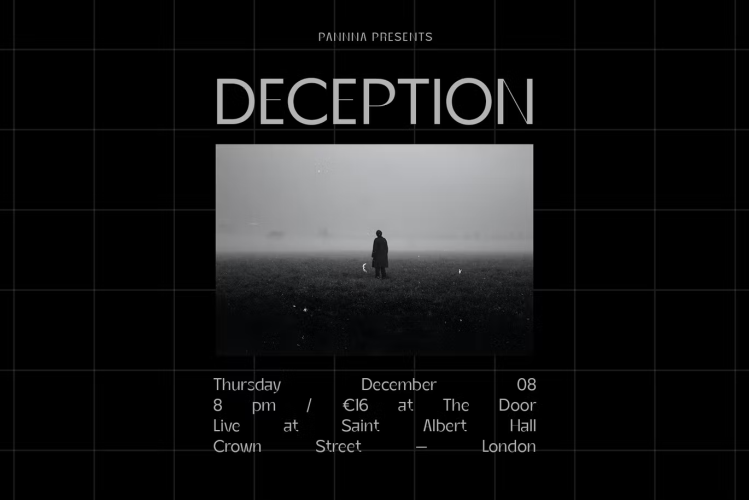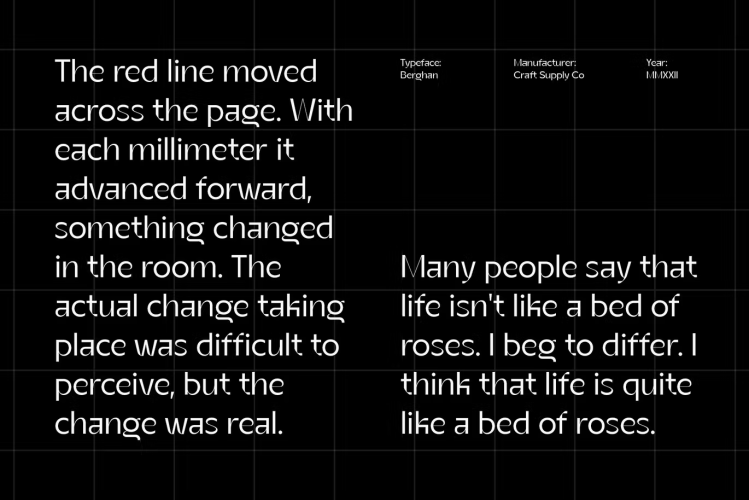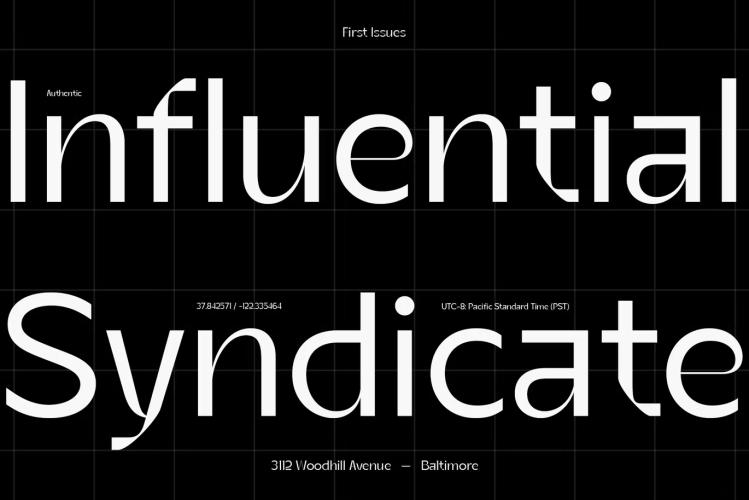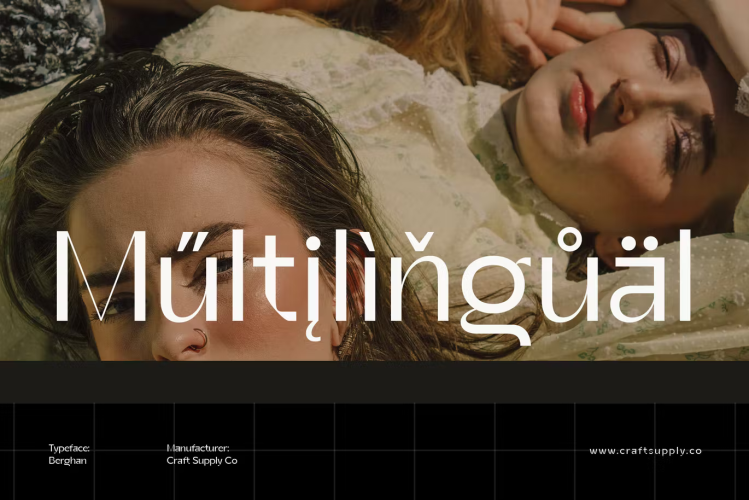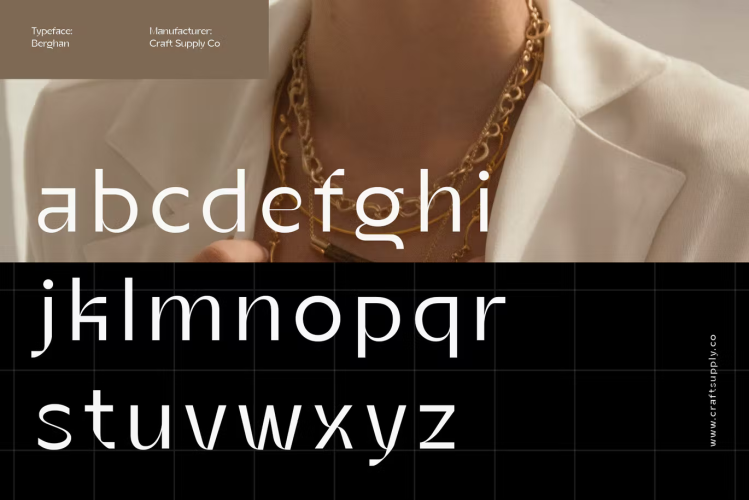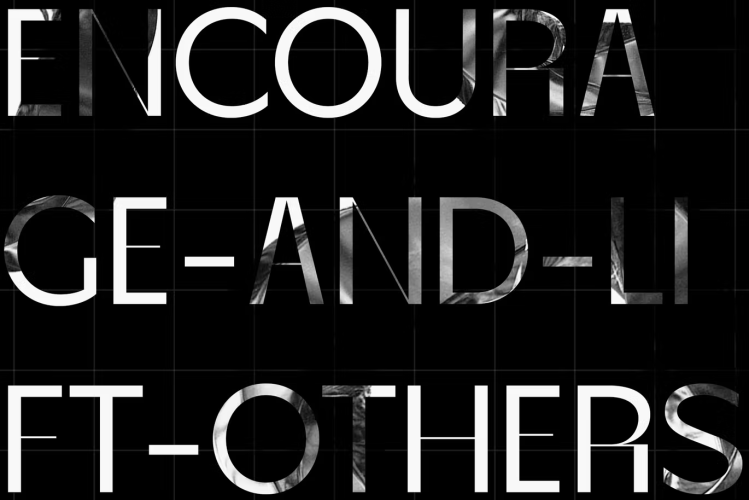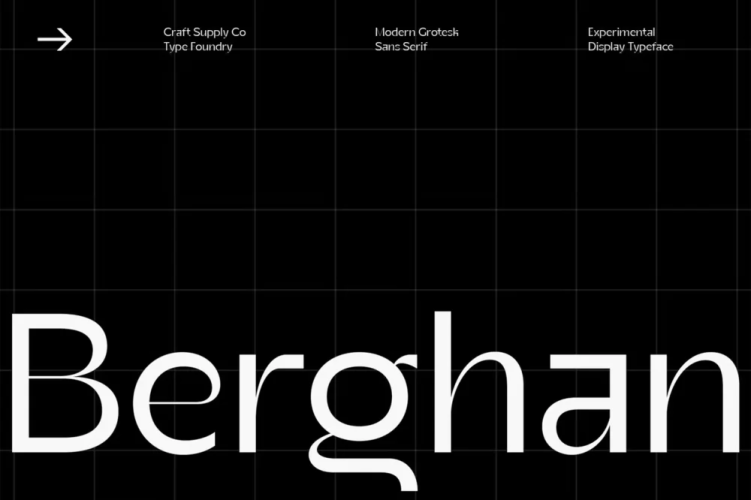
Berghan Modern Grotesk Font
Berghan Modern Grotesk Font sans serif that features thick and thin contrast details for contemporary nuances. It can be used to create almost all types of design projec…
Berghan Modern Grotesk Font sans serif that features thick and thin contrast details for contemporary nuances. It can be used to create almost all types of design projects like print materials. Just use your imagination and your project will become more alive and look great than ever with this typeface.
You want to make a greeting card or a package design, or even a brand identity, craft design, any DIY project, book title, wedding font, pop vintage design, retro design, or any purpose to make your art/design project look pretty and trendy? Feel free to play with this typeface!
Where Berghan Modern Grotesk Font works best
Headlines and titles
Berghan Modern Grotesk Font has enough character to carry a headline on its own; set it large and keep the supporting text plain.
Brand and product names
Short strings are where this typeface is strongest — a name, a label, a cover line.
Social and video graphics
Set Berghan Modern Grotesk Font over a flat colour or a quiet photograph so the letterforms stay the focus.
What kind of work does Berghan Modern Grotesk Font suit?
It sits in the Typeface group and reads as branding, contemporary, modern, retro. That makes it a candidate wherever those qualities help: headings, packaging, social graphics and brand work. Set it at the size you plan to use before deciding.